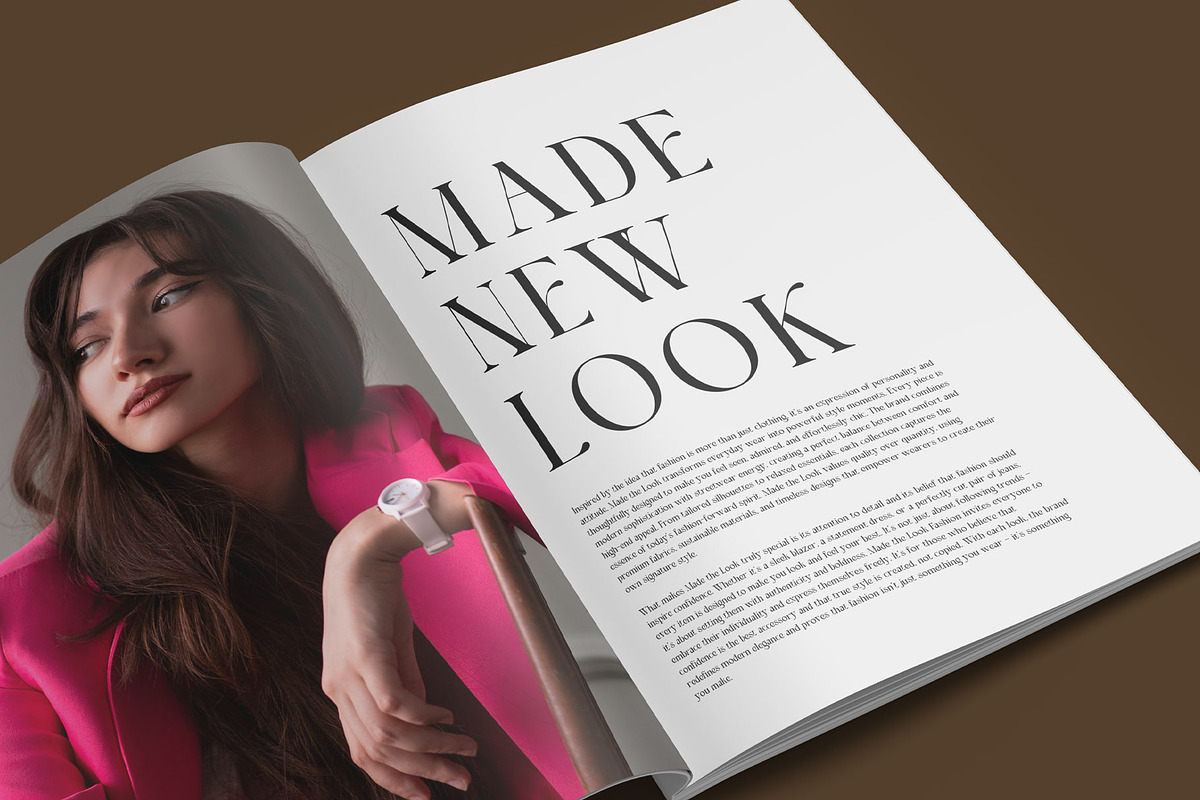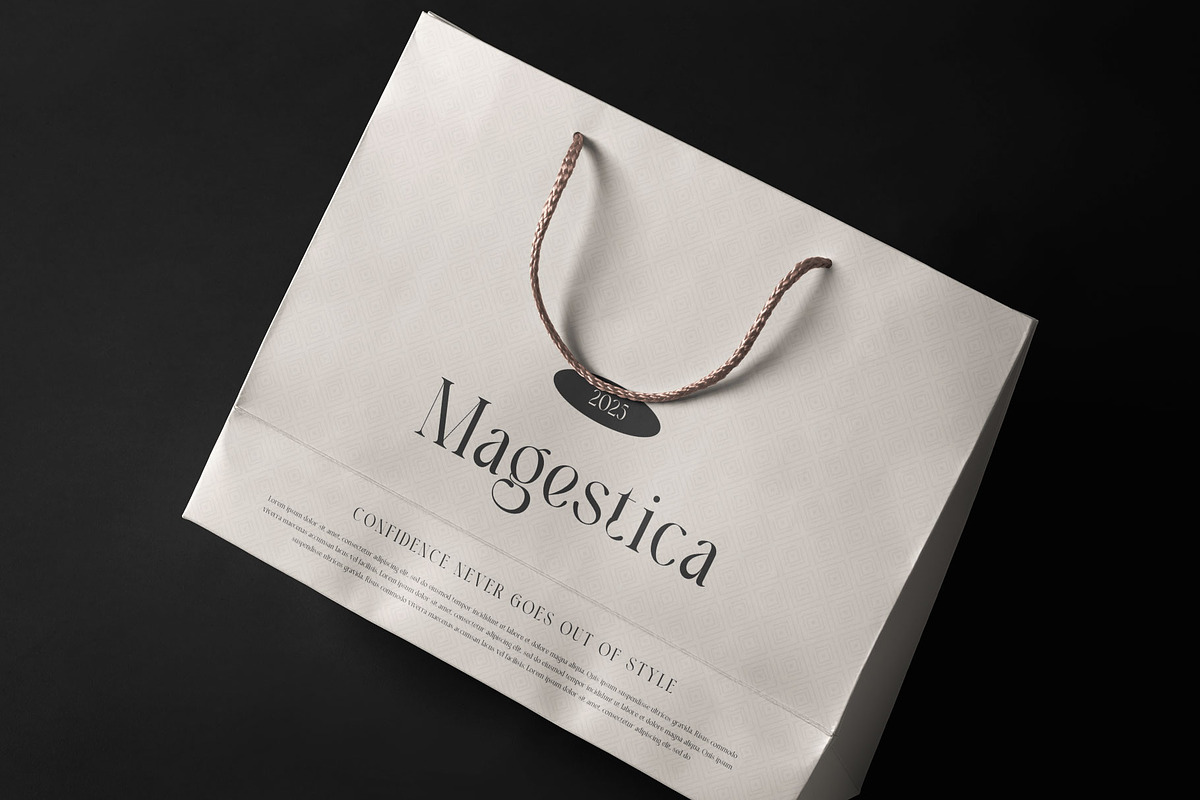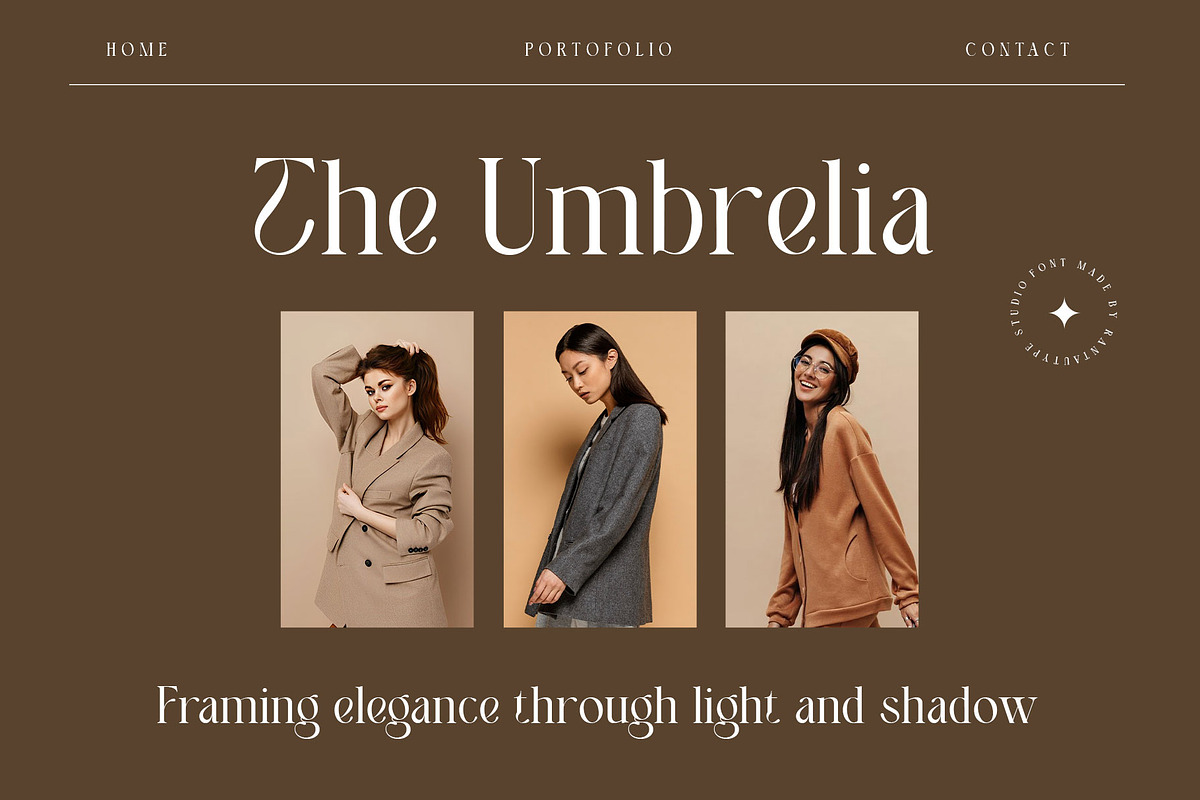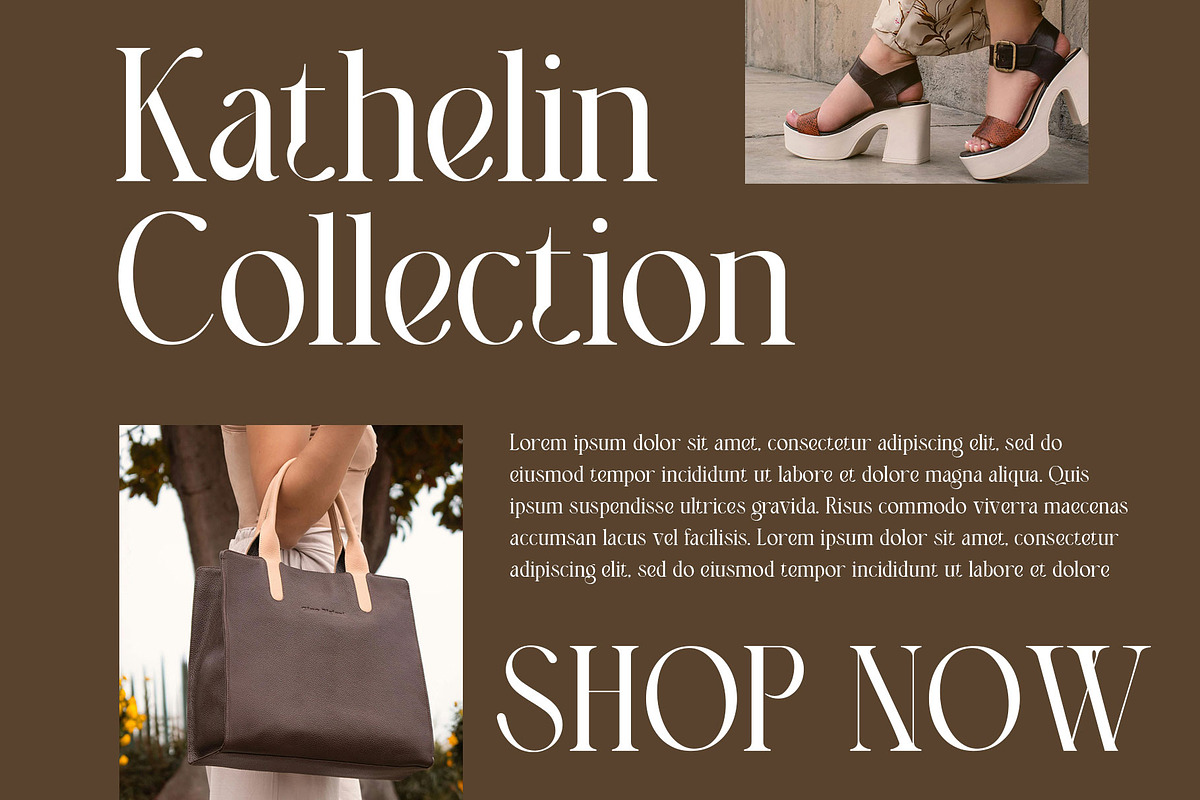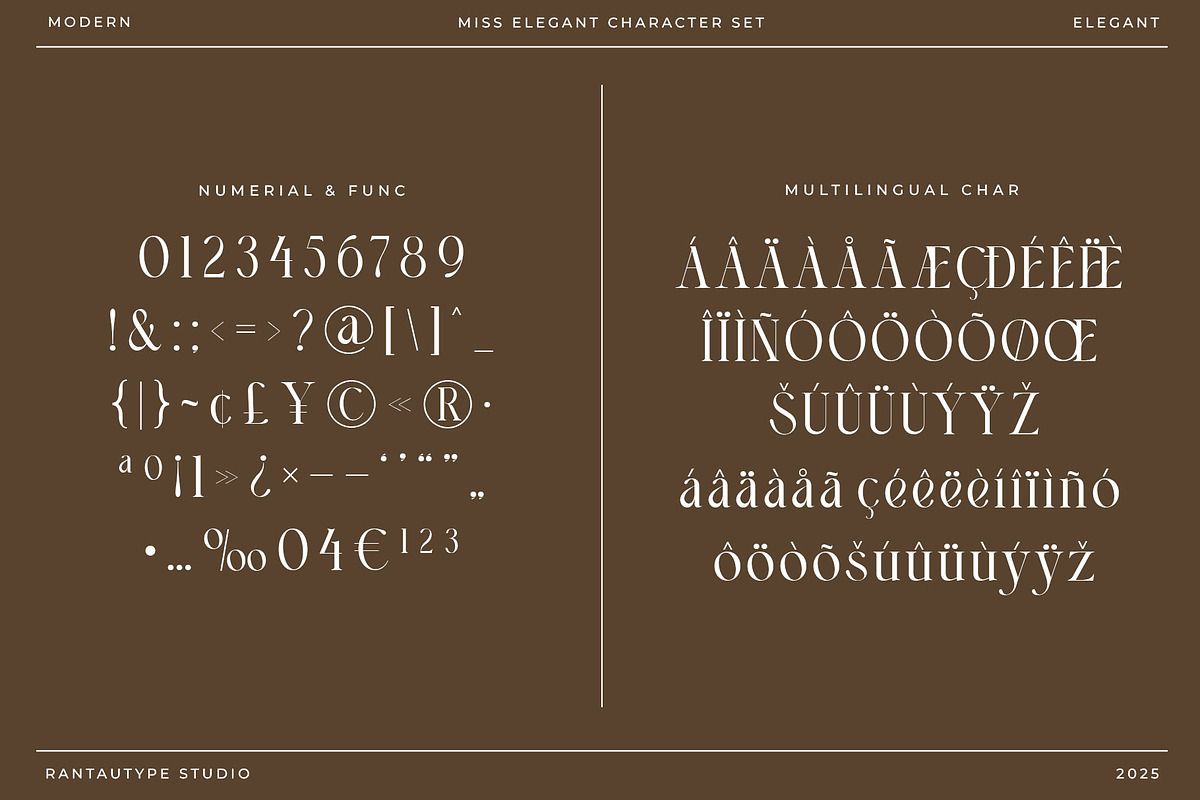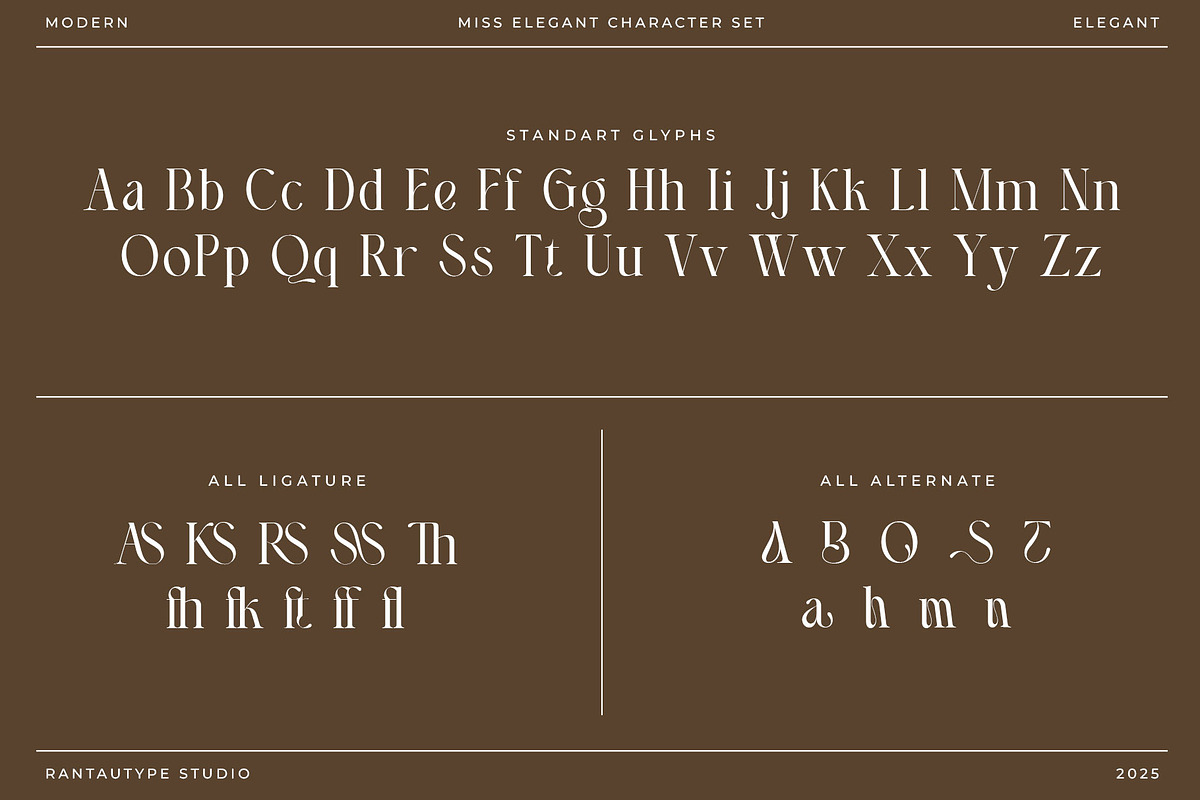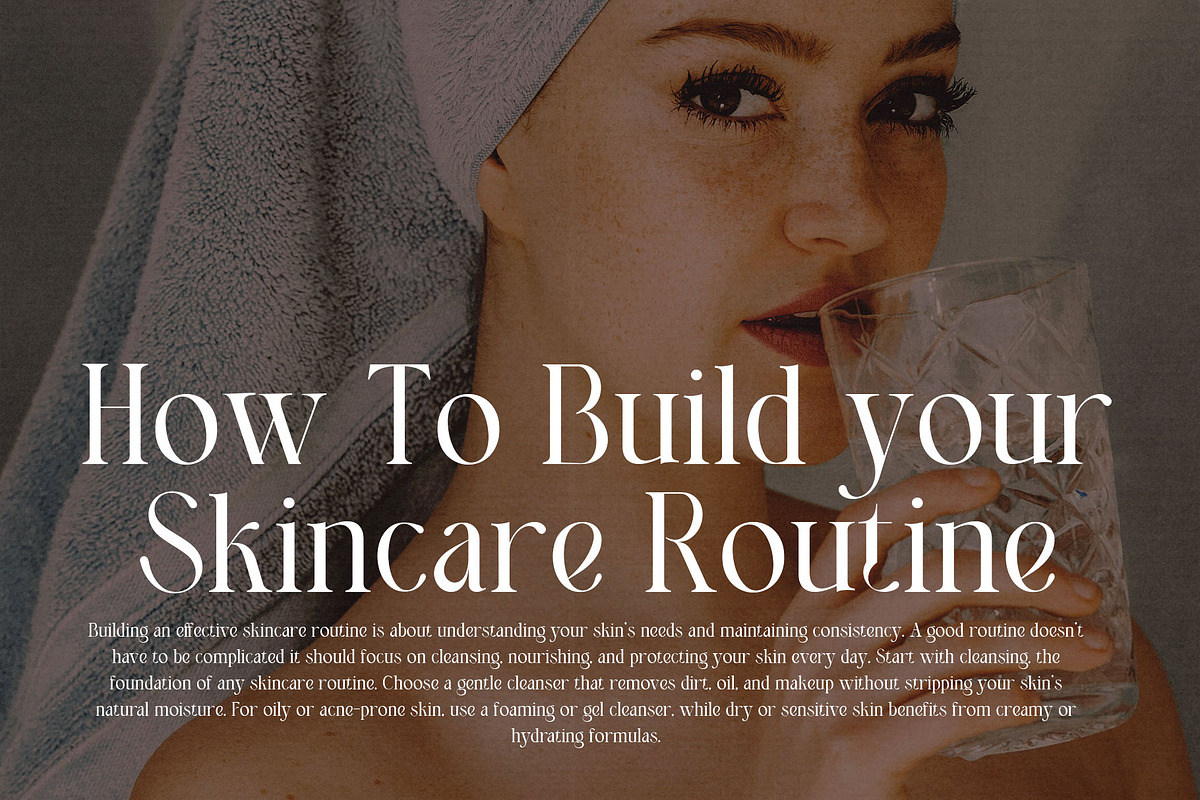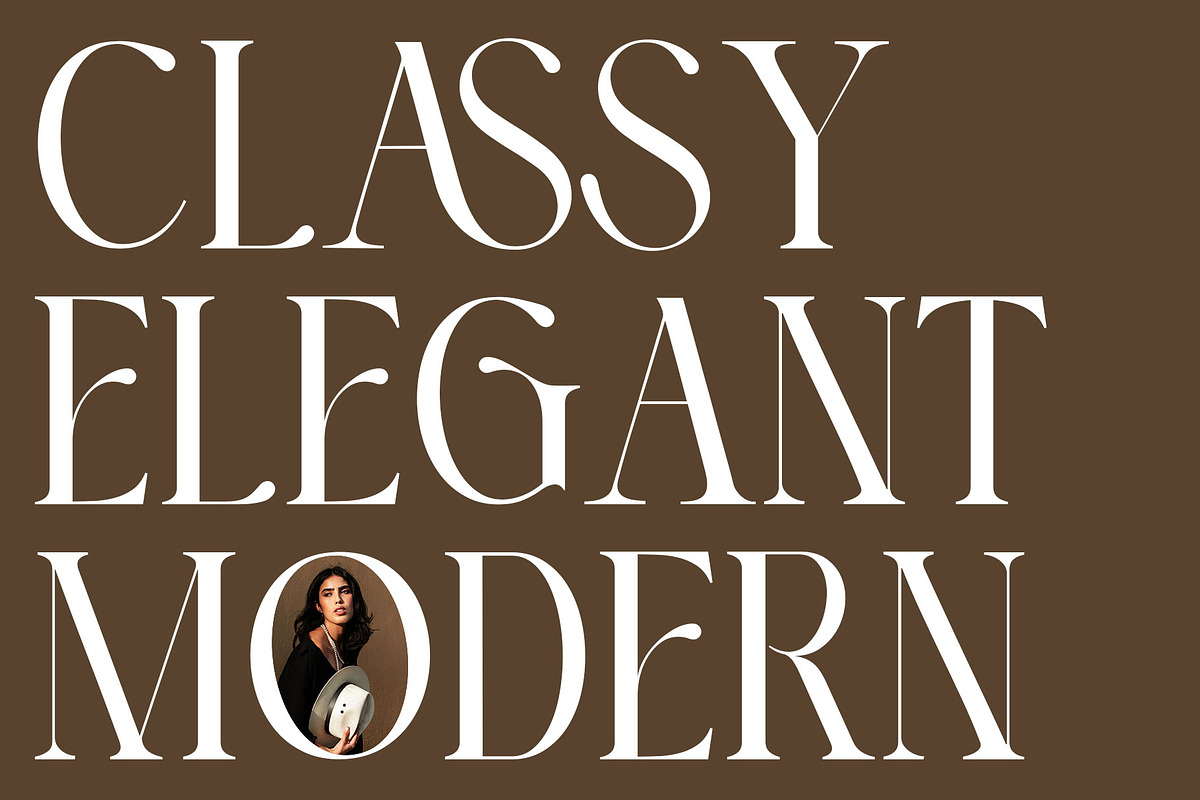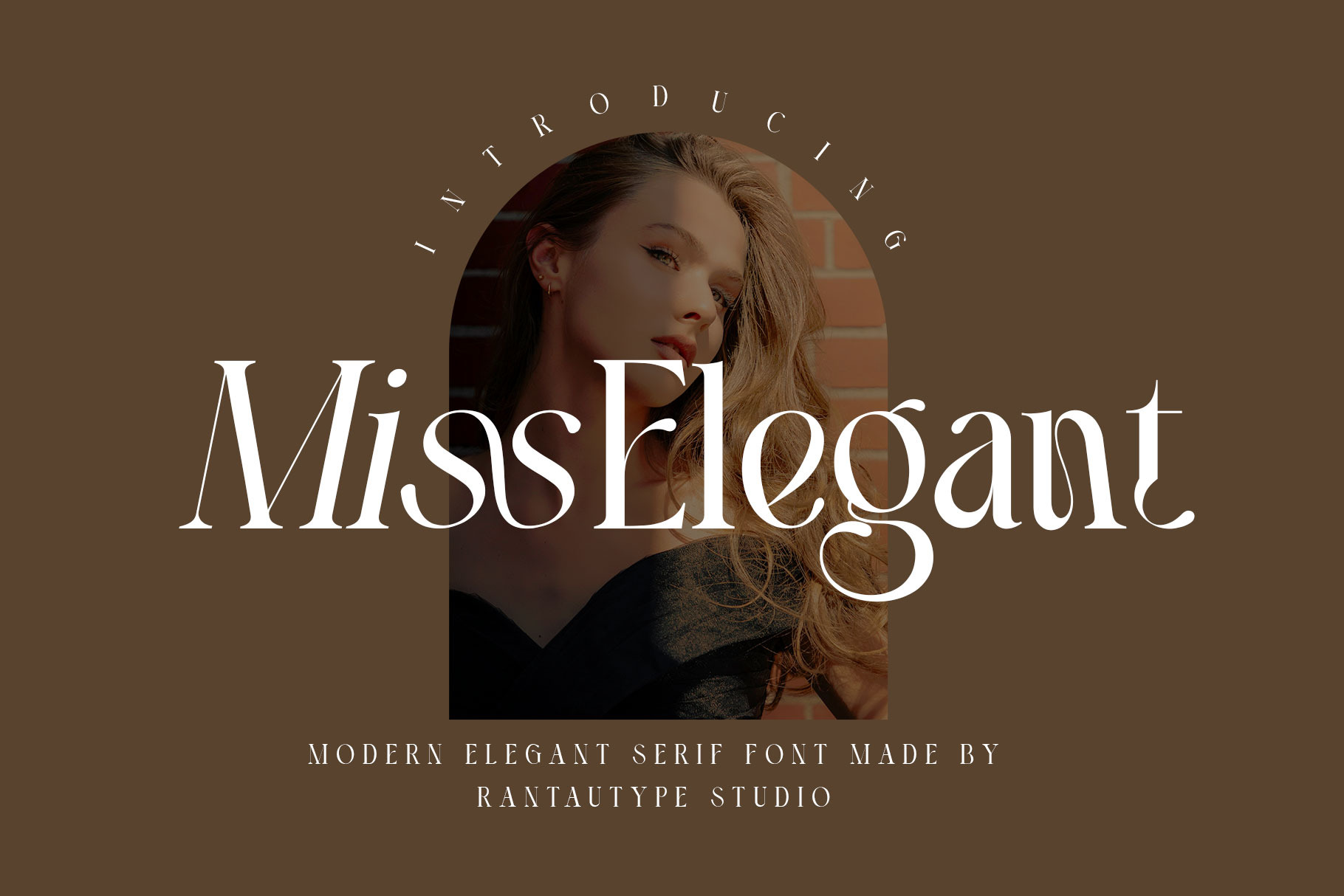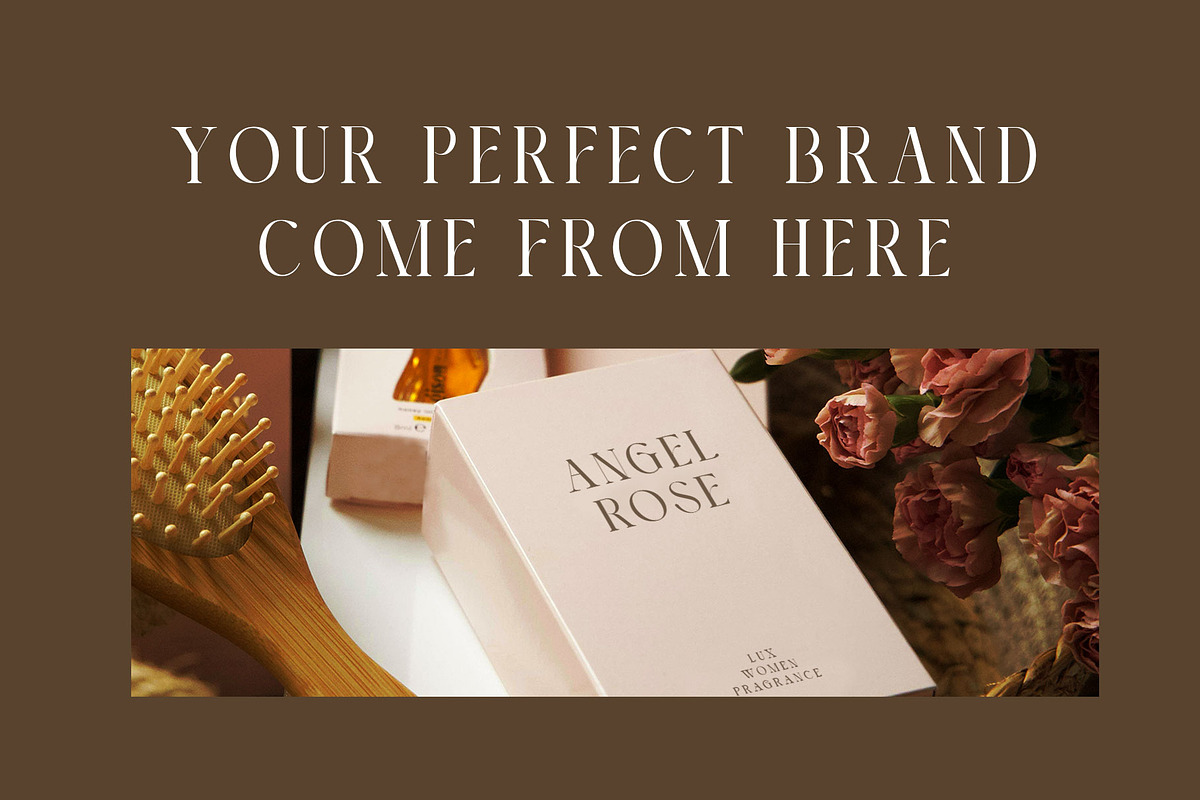
Miss Elegant Modern Serif Font
Miss Elegant is elegant serif font embodies timeless sophistication and refined design, crafted for those who value classic beauty with a modern touch. Each letterform is meticulously balanced, featuring graceful curves and delicate serifs that exude professionalism and confidence.
Miss Elegant come with letterform carries a graceful balance between delicate curves and sharp serifs, creating a luxurious and professional impression. Chennar is a perfectly choice for any creative endeavor, creating, modern, lifestyle design such as logotype, title, cover, branding, invitations, wedding designs, display and magazine, social media posts, advertisements, printed quotes, product packaging, corporate brand, product designs, labels, photography, watermarks, special events and any other project with elegant touch.
- Standart Glyphs
- Alternate and ligature
Fonts include Multilingual Character for: Afrikaans, Albanian, Asu, Basque, Bemba, Bena, Breton, Chiga, Cornish, Dutch, English, Estonian, Filipino, Finnish, Friulian, Galician, Gusii, Indonesian, Irish, Italian, Kabuverdianu, Kalenjin, Kinyarwanda, Luo, Luxembourgish, Luyia, Machame, North, Oromo, Portuguese, Quechua, Romansh, Rombo, Rundi, Rwa, Samburu, Sango, Sangu, Scottish, Gaelic, Sena, Shambala, Shona, Soga, Somali, Spanish, Swahili, Swedish, Swiss, German.